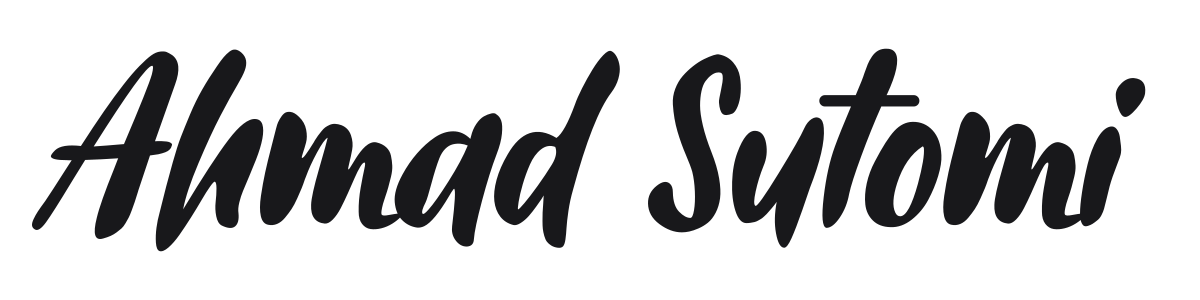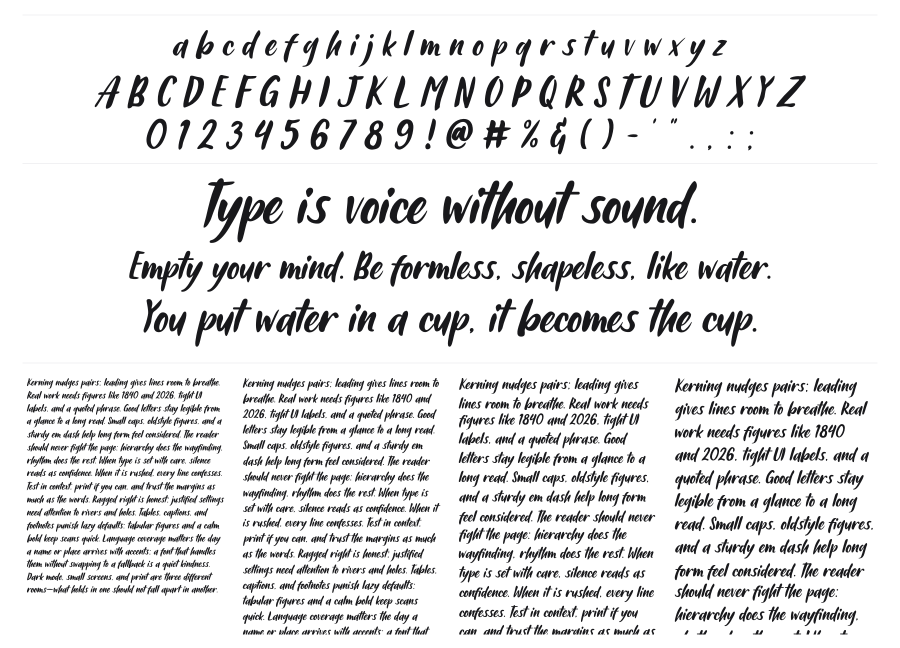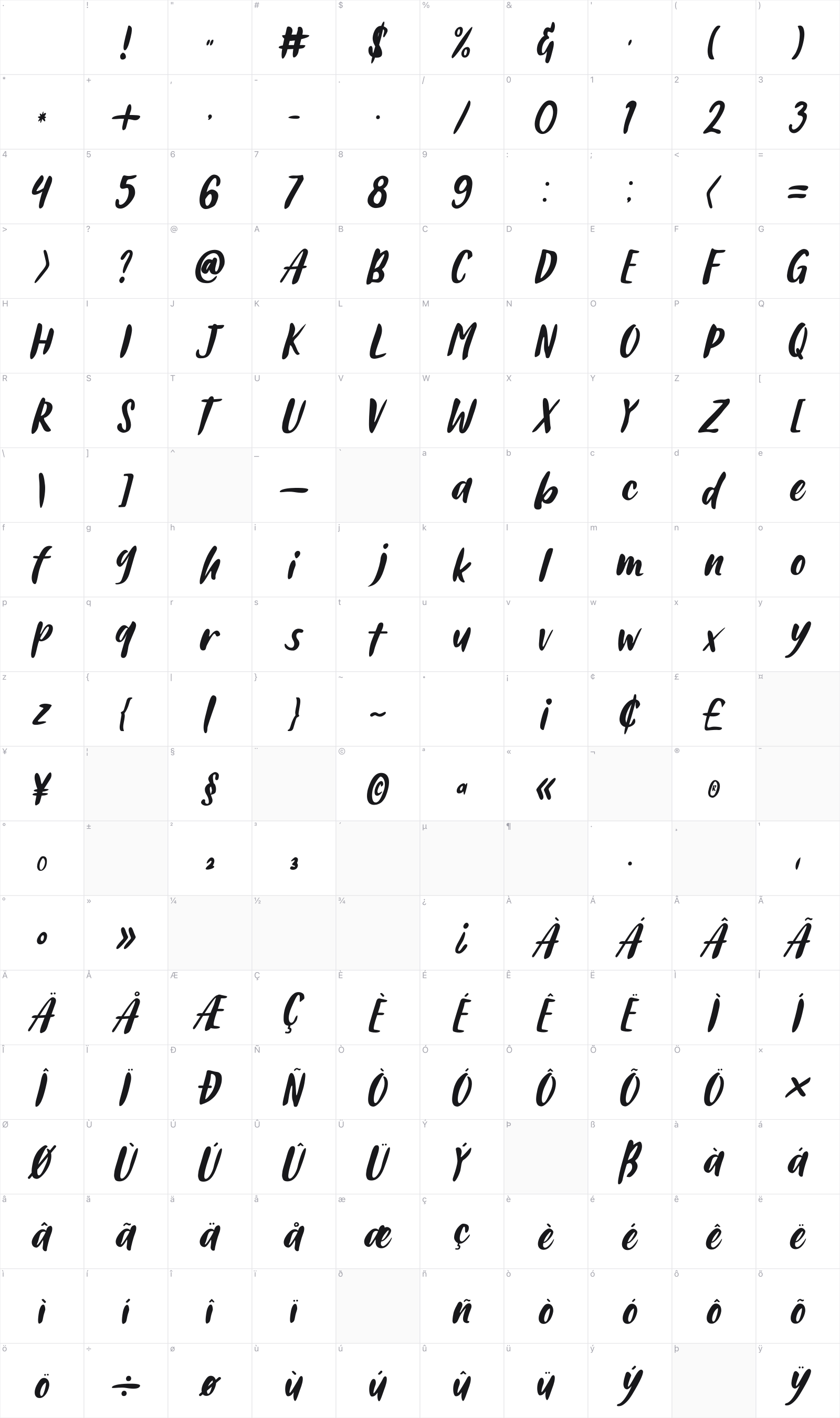
Ahmad Sutomi
Ahmad Sutomi is a bold casual brush script with the kinetic energy of hand-lettered signage. Thick downstrokes and wispy connecting strokes create strong contrast across flowing, connected letters. It works well across branding, packaging, and poster work where handcrafted warmth is the goal.